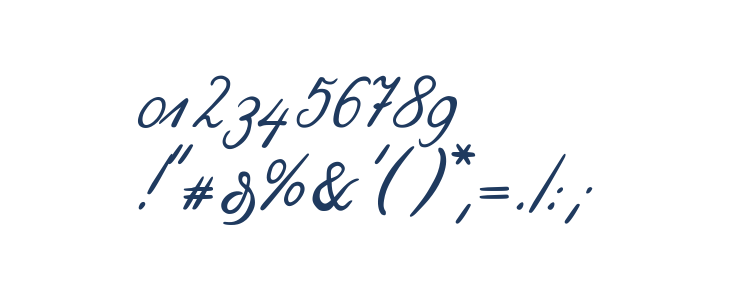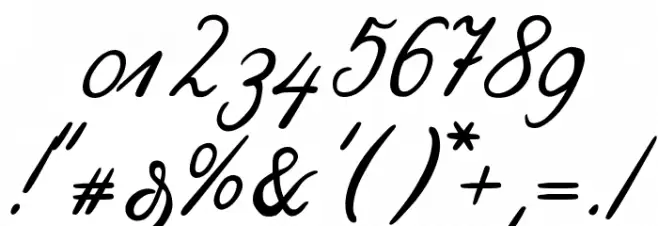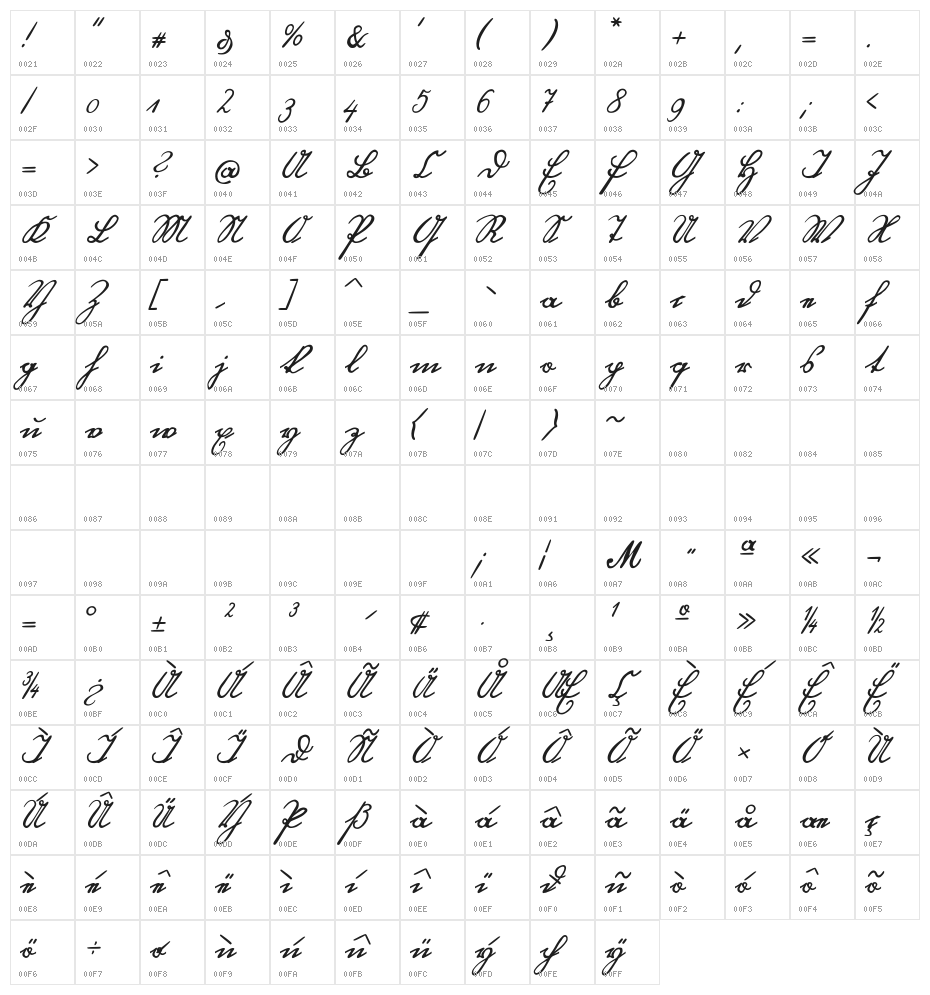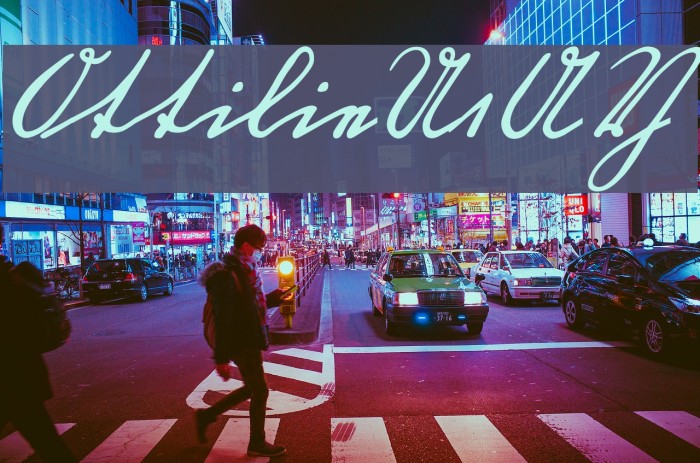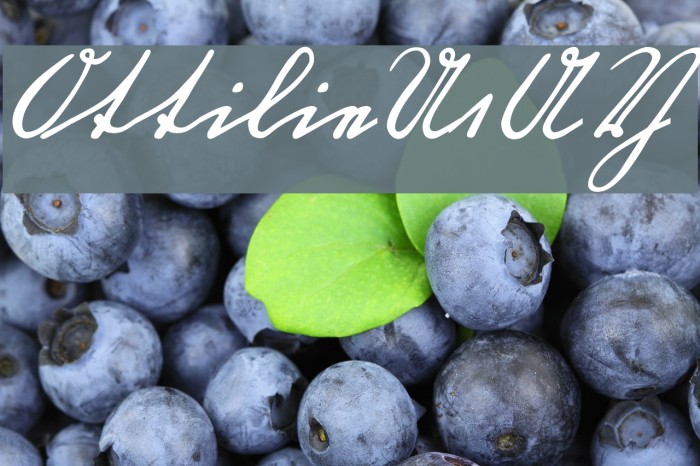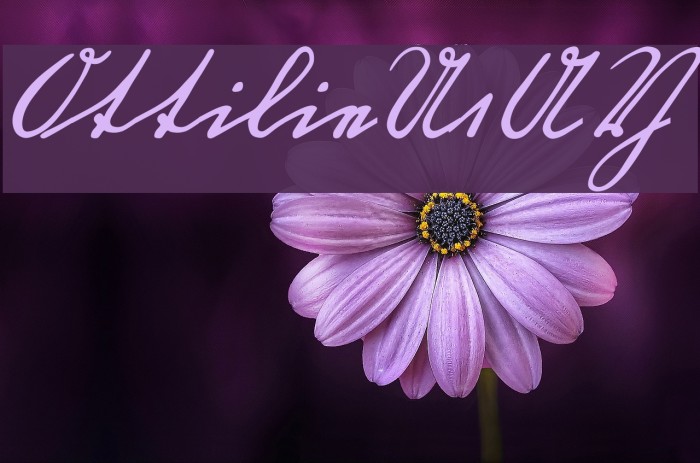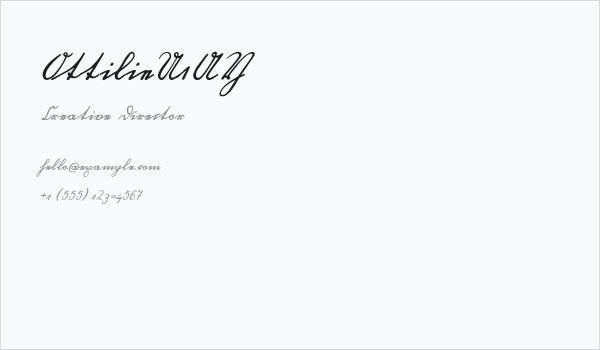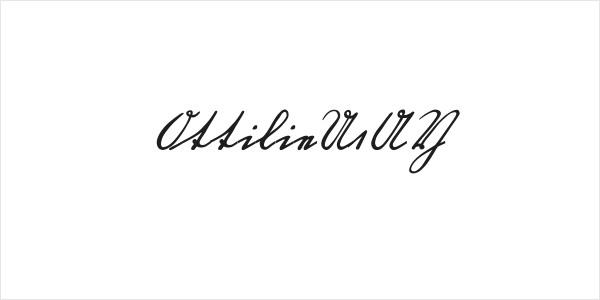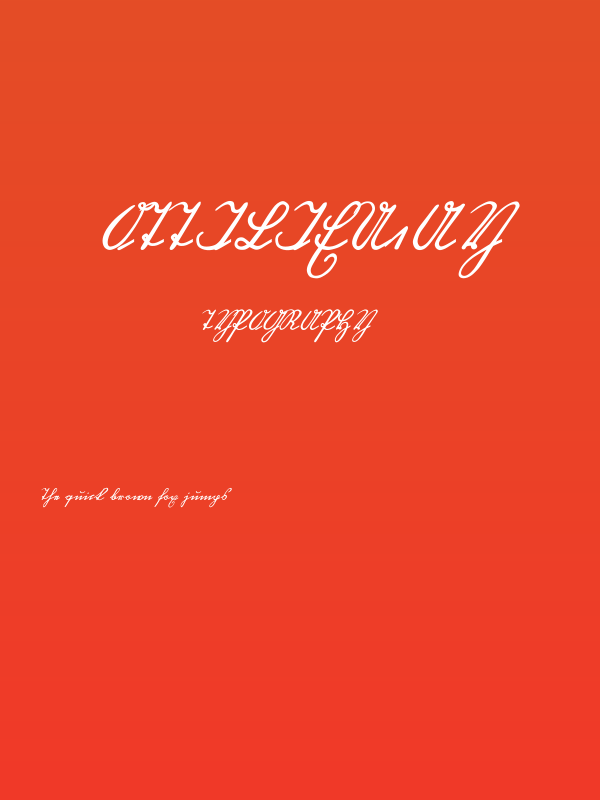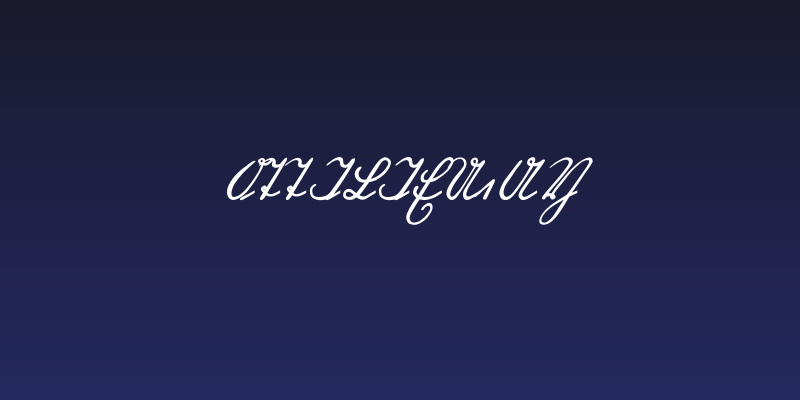
OttilieU1AY Font
OttilieU1AY Description
This font features an elegant and flowing script style, characterized by its cursive, handwritten appearance. The letters are connected, creating a seamless and fluid look that mimics natural handwriting. The strokes are smooth and consistent, with a slight slant to the right, adding to the dynamic and lively feel. The uppercase letters are ornate, with intricate loops and flourishes, while the lowercase letters maintain a more restrained yet stylish form. The numerals and special characters are designed to match the overall aesthetic, ensuring a cohesive look across all text. This font is perfect for projects that require a personal touch or a sophisticated, artistic flair.